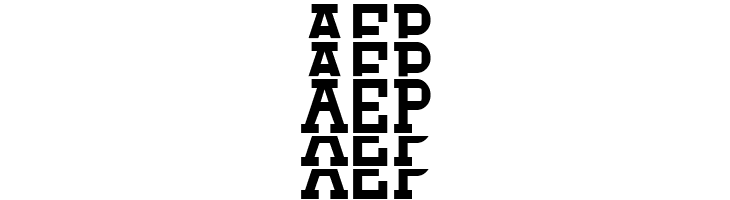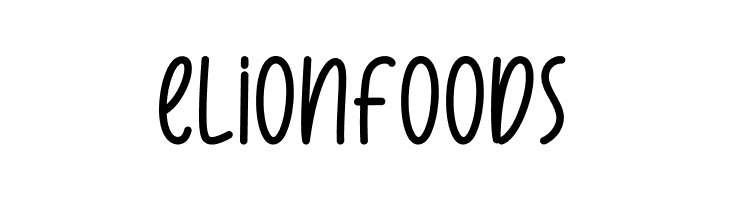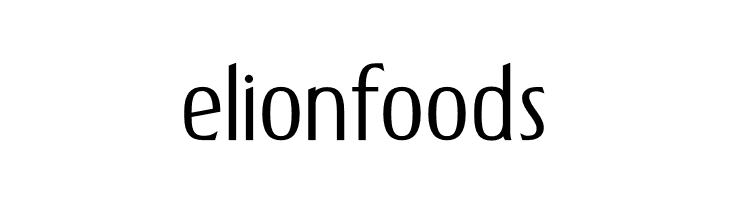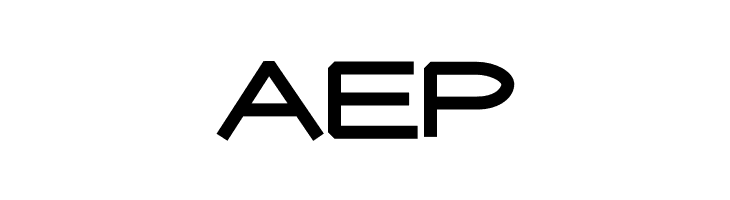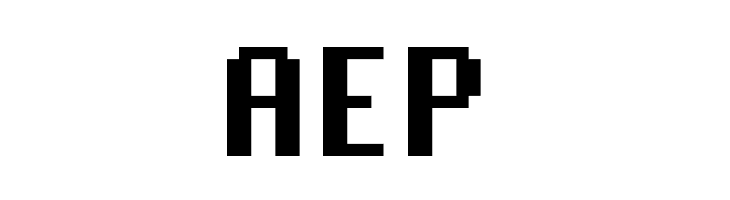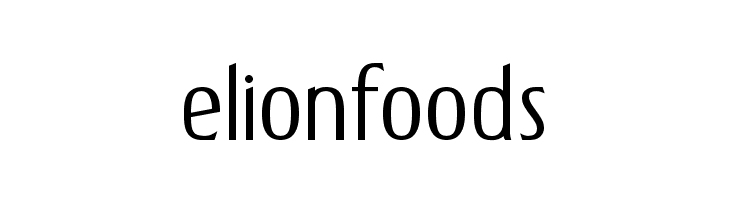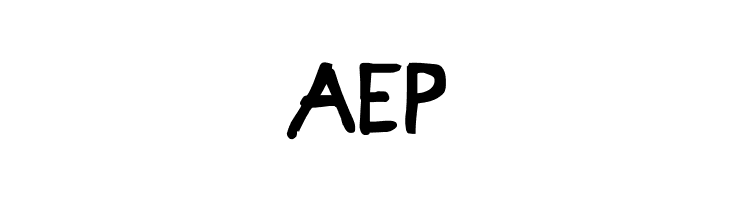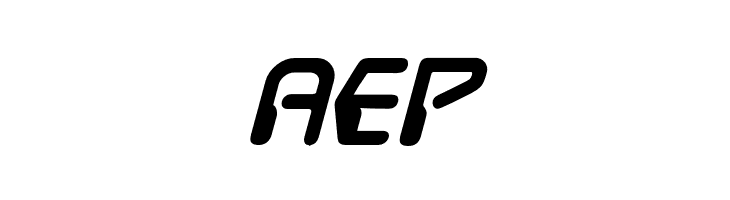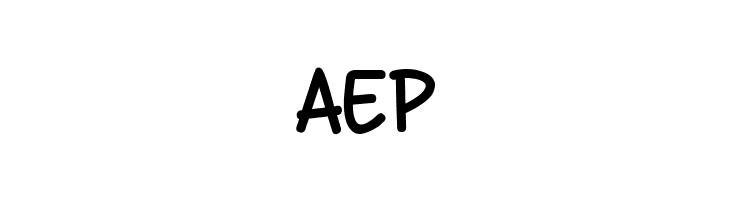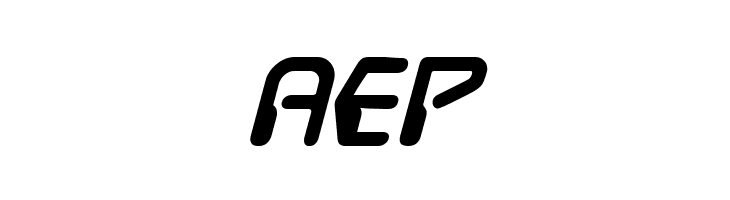
A modern, sleek font with clean lines and a geometric structure.
A sleek, modern font with clean lines and a slightly condensed structure.
A modern, geometric font with elongated, narrow characters and clean lines.
A bold, geometric font with a modern and impactful design.
A bold, semi-italic font with a dynamic and modern style.
A bold, block-like font with slight curvature, ideal for impactful designs.
A bold, pixelated font inspired by retro digital displays.
A bold serif font with strong strokes and classic design.
A bold, angular font with a geometric and edgy design.
A bold, modern sans-serif font with clean, geometric lines and balanced spacing.
A bold, handwritten font with rounded strokes and a playful, approachable style.
A bold, handwritten font with a playful and casual style.
A bold, handwritten font with fluid strokes and a dynamic style.
A bold, expressive font with a playful, handwritten style.
A bold, fragmented font with a dynamic and edgy appearance.
A bold, angular, and futuristic font with a dynamic, slanted style.
A futuristic, geometric font with bold, angular shapes and cut-out sections.
A bold, futuristic font with geometric, angular characters and a dynamic slant.
A bold, angular font inspired by ancient runic alphabets, perfect for decorative use.
A bold, italicized font with angular, runic-inspired design.
A bold, cursive script font with interconnected letters and a flowing style.
A bold, cursive font with interconnected letters and a strong visual presence.
A bold, geometric font with sharp angles and strong visual impact.
A bold, stacked font with a modern and impactful design.
A bold, grunge-style font with a distressed and dynamic appearance.